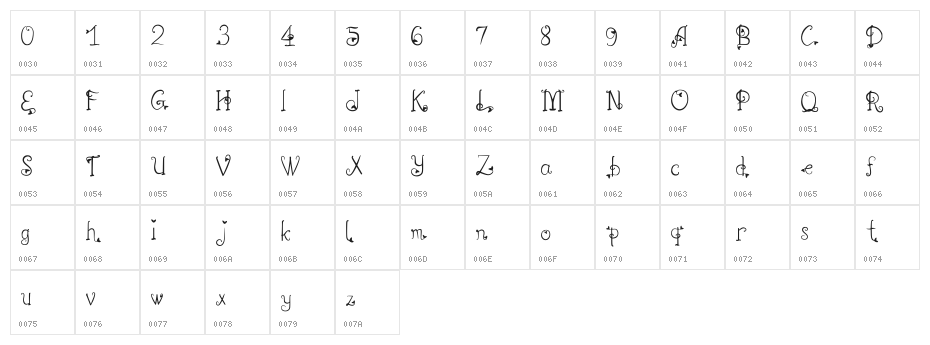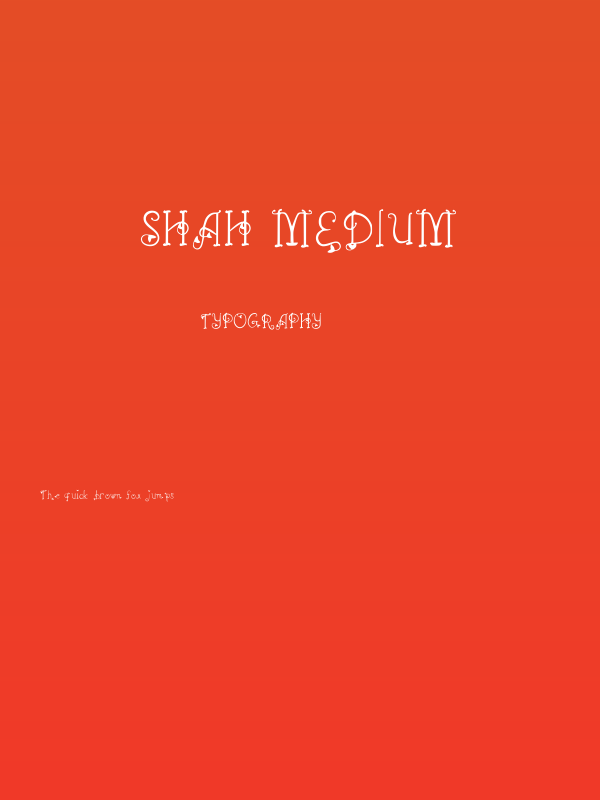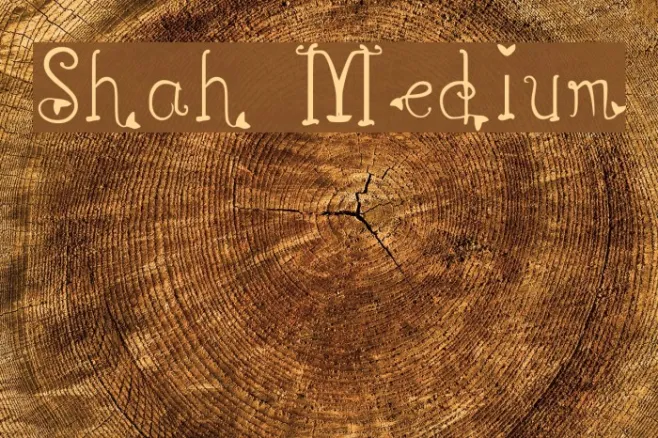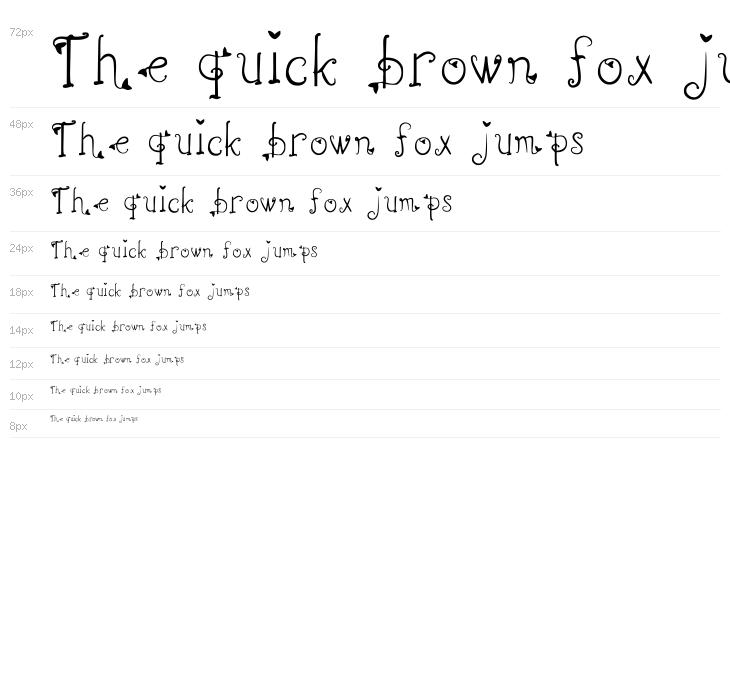
Shah Medium Font
Shah Medium Description
This font features a whimsical and decorative style, characterized by its unique and playful elements. Each letter is adorned with small, intricate curls and embellishments that give it a distinctive, artistic flair. The uppercase letters are bold and prominent, while the lowercase letters maintain a consistent decorative theme. The numbers follow the same playful design, making them stand out with their creative curves. The special characters are equally ornate, adding to the font's overall charm. This font is perfect for projects that require a touch of creativity and elegance.
| Proposed Projects | Ideal for greeting cards, invitations, artistic posters, and creative branding. |